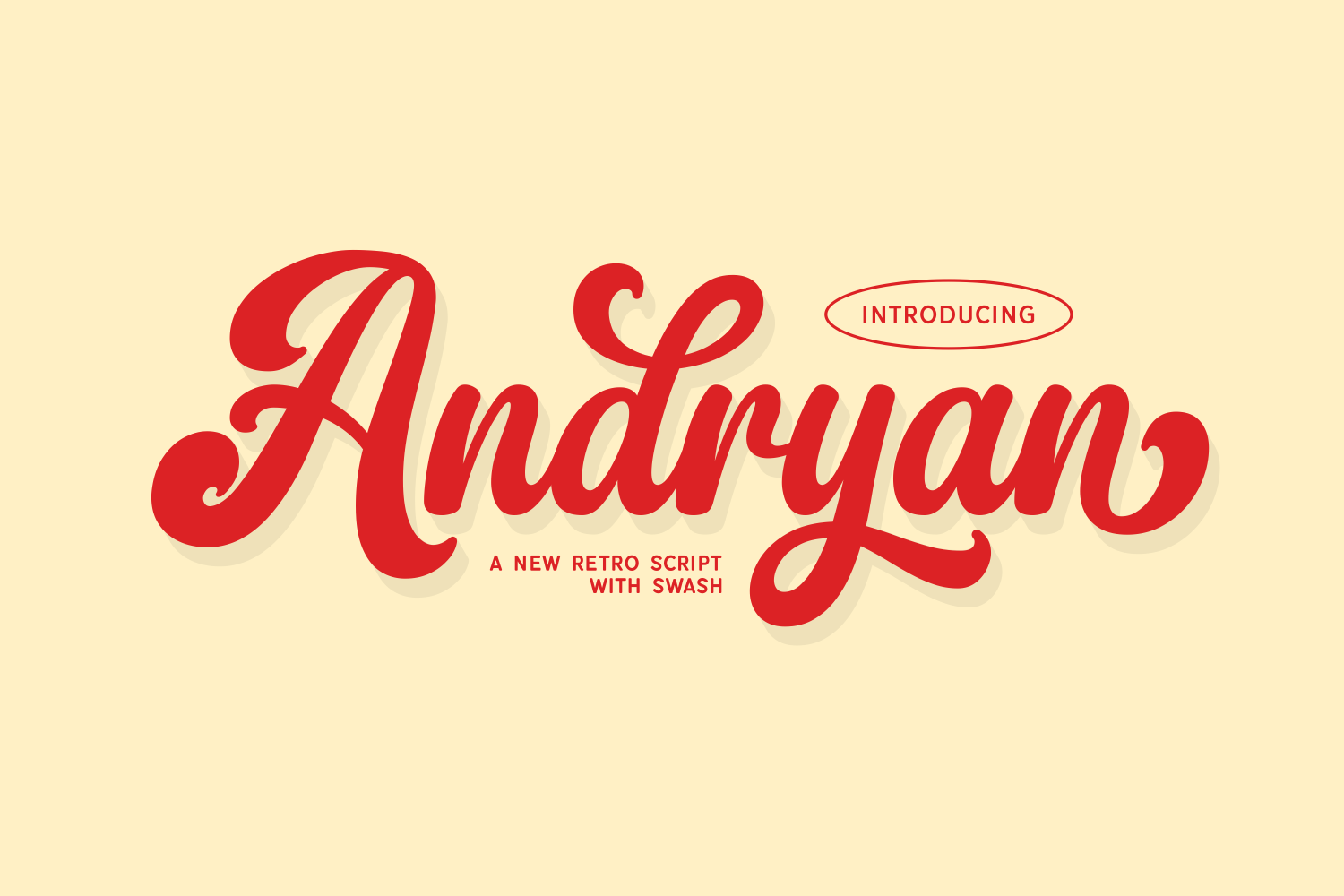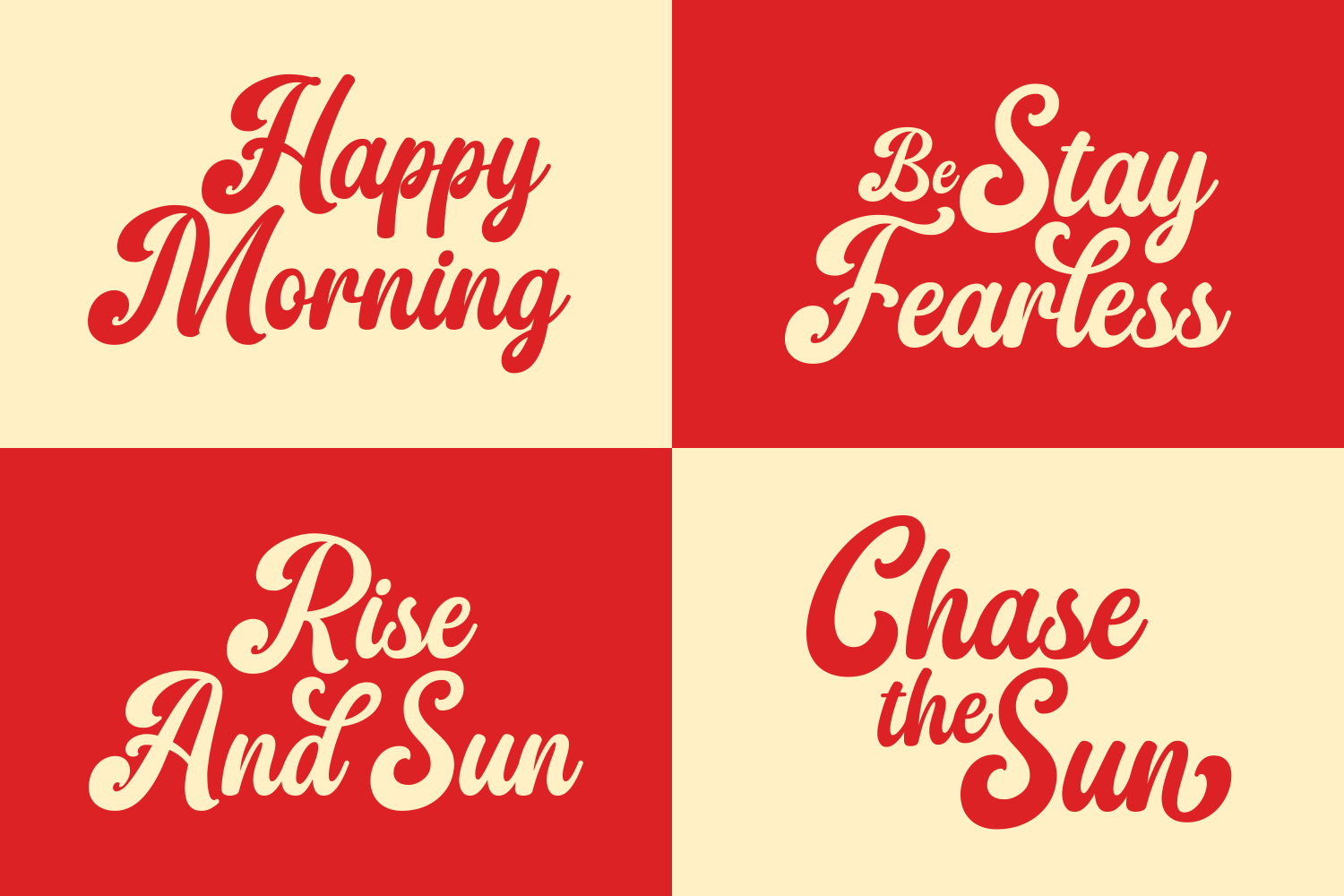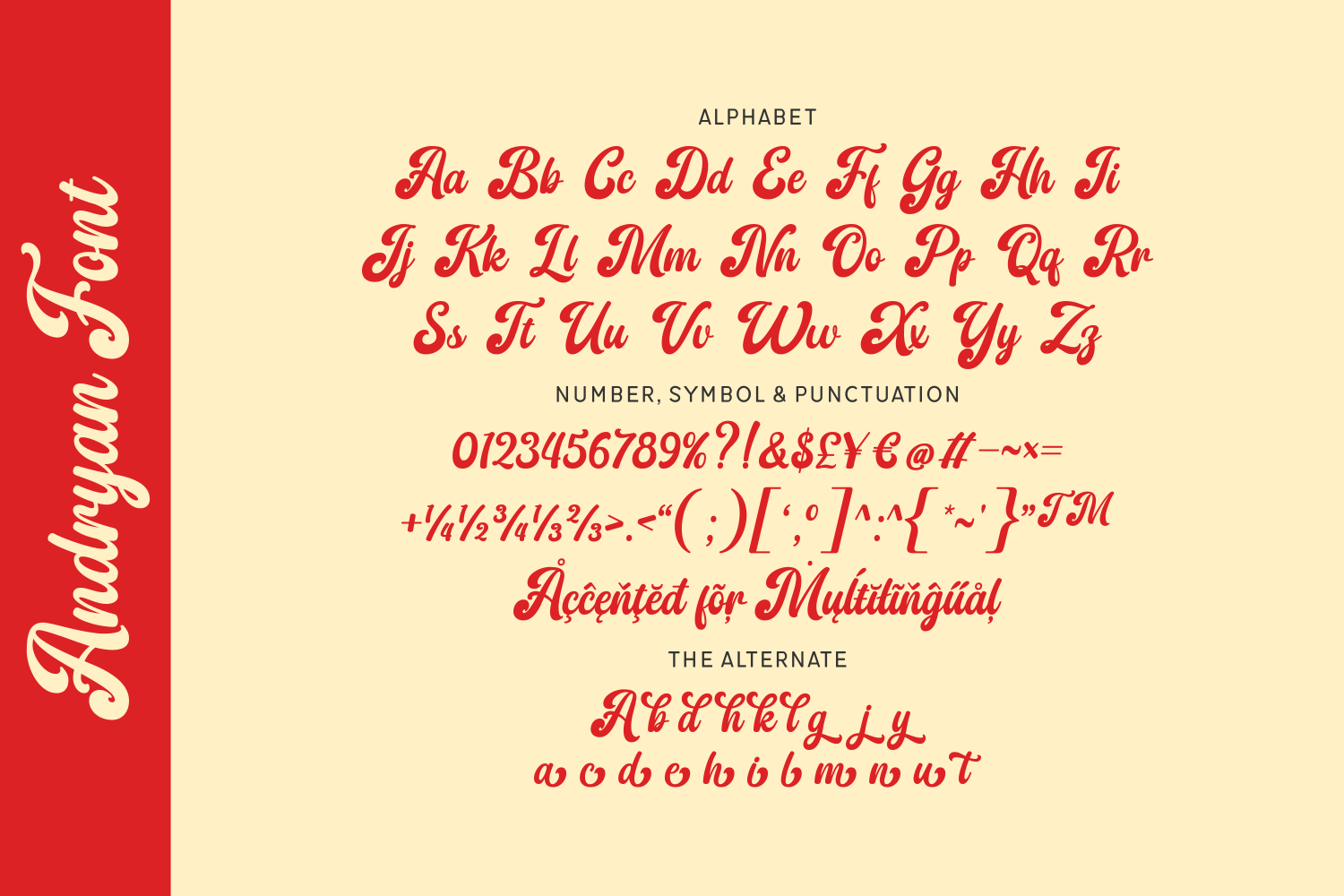
Andryan is a bold retro script font with swashes that instantly brings nostalgic charm to your designs. Its smooth curves and vintage flair make it ideal for logos, packaging, signage, and apparel. A great pick for creative projects that aim to capture fun and familiarity with a stylish twist.